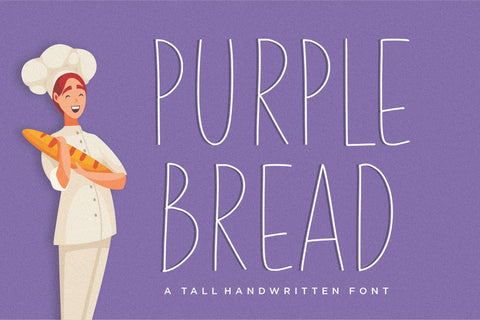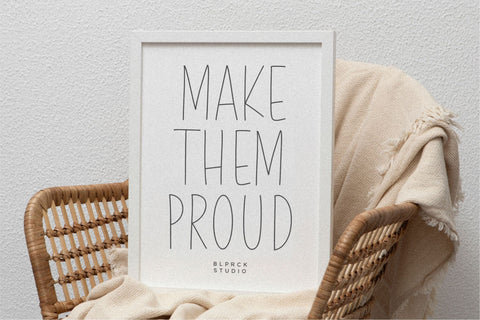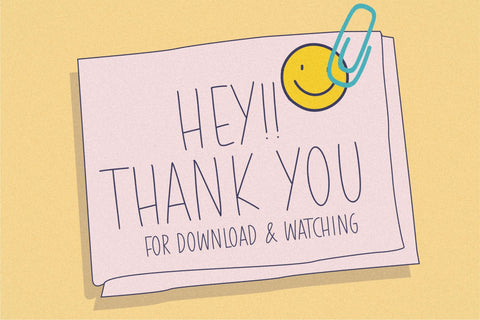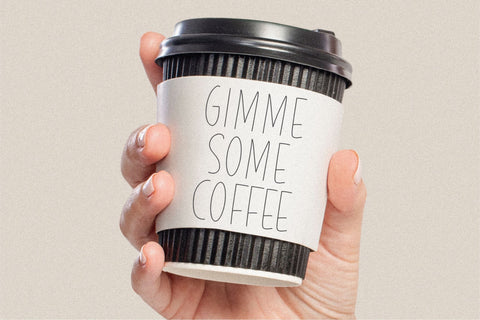
Purple Bread Font
Purple Bread is a Tall Handwritten Font.
Whether you’re using it for crafts, digital design, presentations, or making greeting cards, this font has the potential to become your favorite go-to font, no matter the occasion!
This font only has allcaps letters.